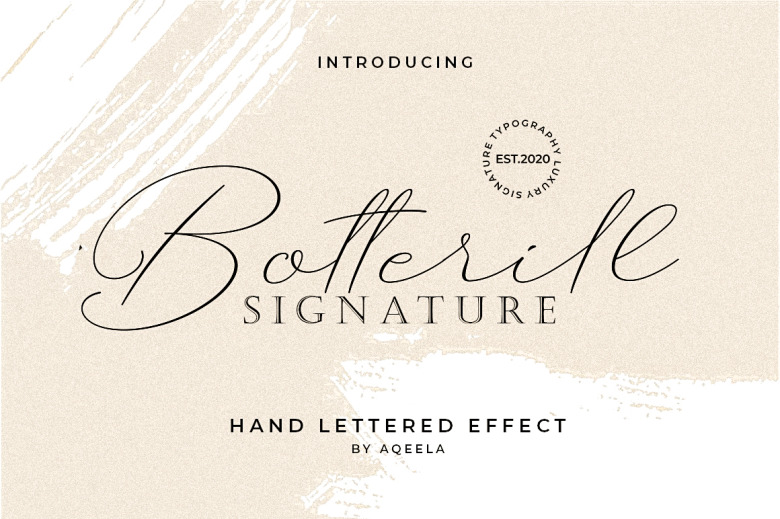
Botterill Signature is a smoothly flowing script font. With its elegant style, it makes the perfect choice for stationery, greeting cards, wedding invitations and so on. This font is PUA encoded meaning it can access all of the cute glyphs and swashes easily! It comes complete with a range of special features including alternate glyphs and ligatures.
Botterill Signature Script Font